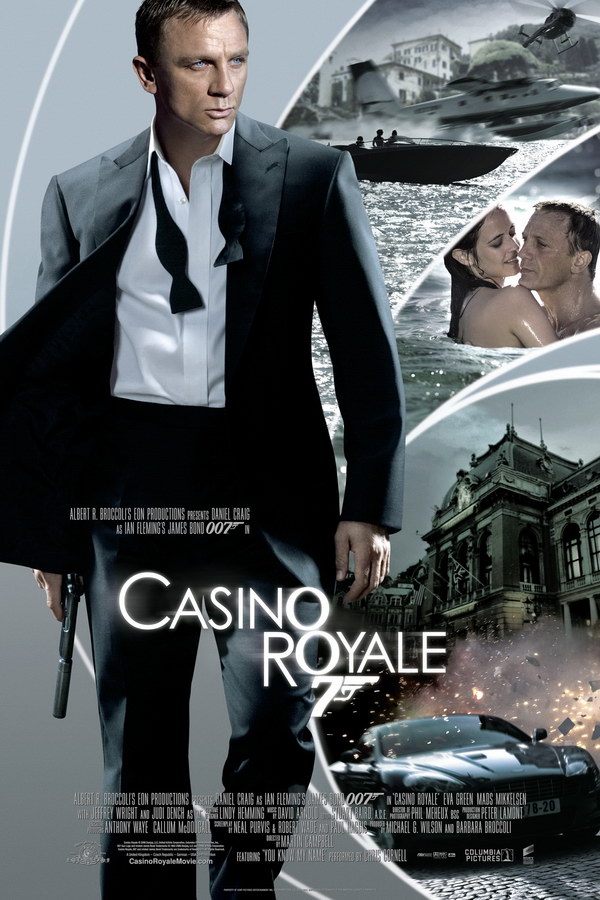
Casino Royale Font
Fonts in UseCasino Royale isis a 2006 spy film based on Ian Fleming's novel, introducing Daniel Craig as James Bond in a high-stakes poker game against a terrorist financier, showcasing intense action and a fresh take on the iconic character.
The movie title in the poster features Century Gothic Regular font with the modified letter "O". Century Gothic is a commercial typeface and more details about it are available here.